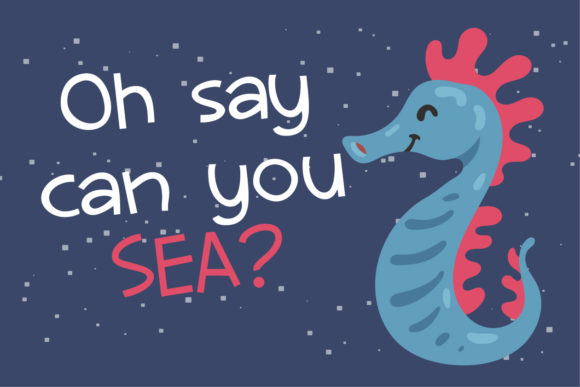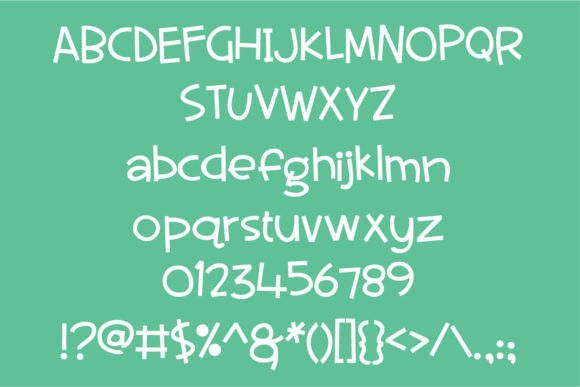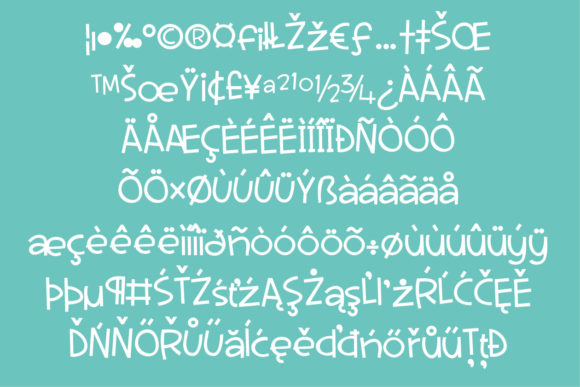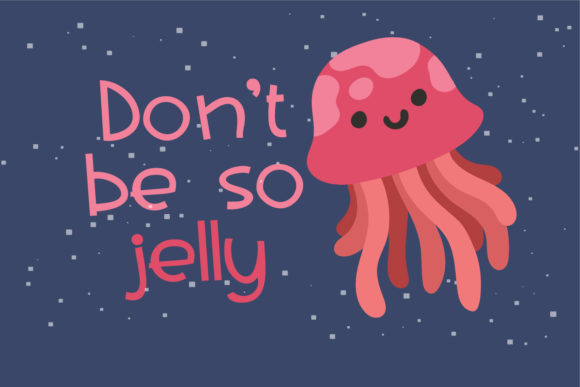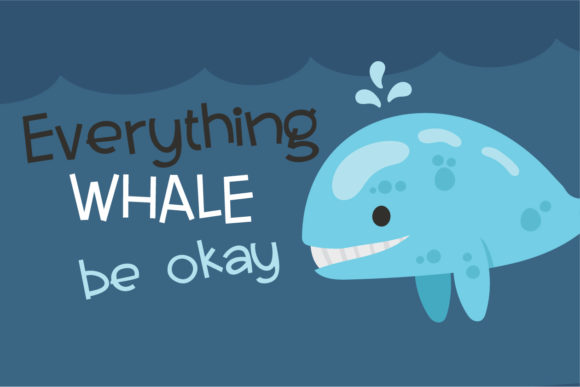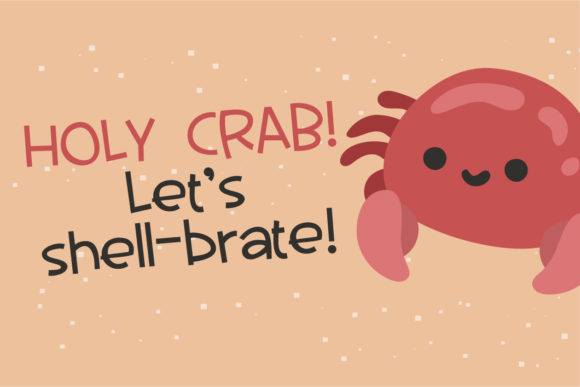
Introduction to PN Sharktank Font
Sharktank is a fun handwritten font.
This enchanting font will turn any creative idea into a true standout Get creative with its childlike playfulness, and use it to brighten up any kids and school project.